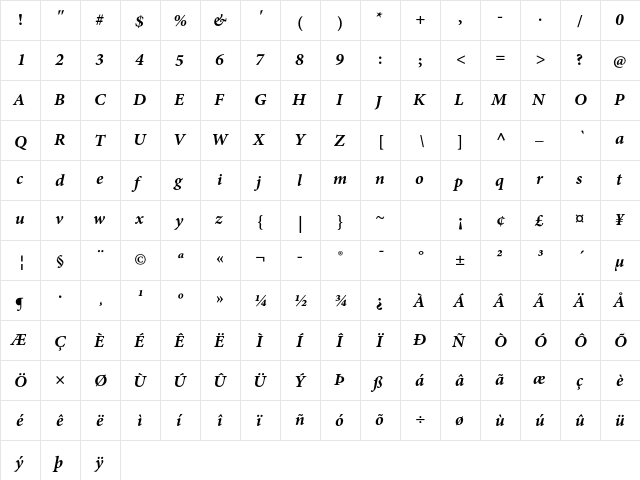
Adobe Arabic Bold Italic
| Foundry | Tiro Typeworks for Adobe Systems Incorporated. |
| Designer | Tim Holloway (Arabic) and Robert Slimbach (Latin) |
Design Context for Adobe Arabic Typeface
Adobe Arabic takes a measured approach to typography — its balanced proportions and neutral character make it a reliable workhorse for both digital and print work. The slanted form adds forward momentum and visual energy. The heavy weight commands attention and anchors typographic hierarchies.
Pro Tip: Use Adobe Arabic for emphasis, pull quotes, and subheadings where its slanted energy can add rhythm to the layout.